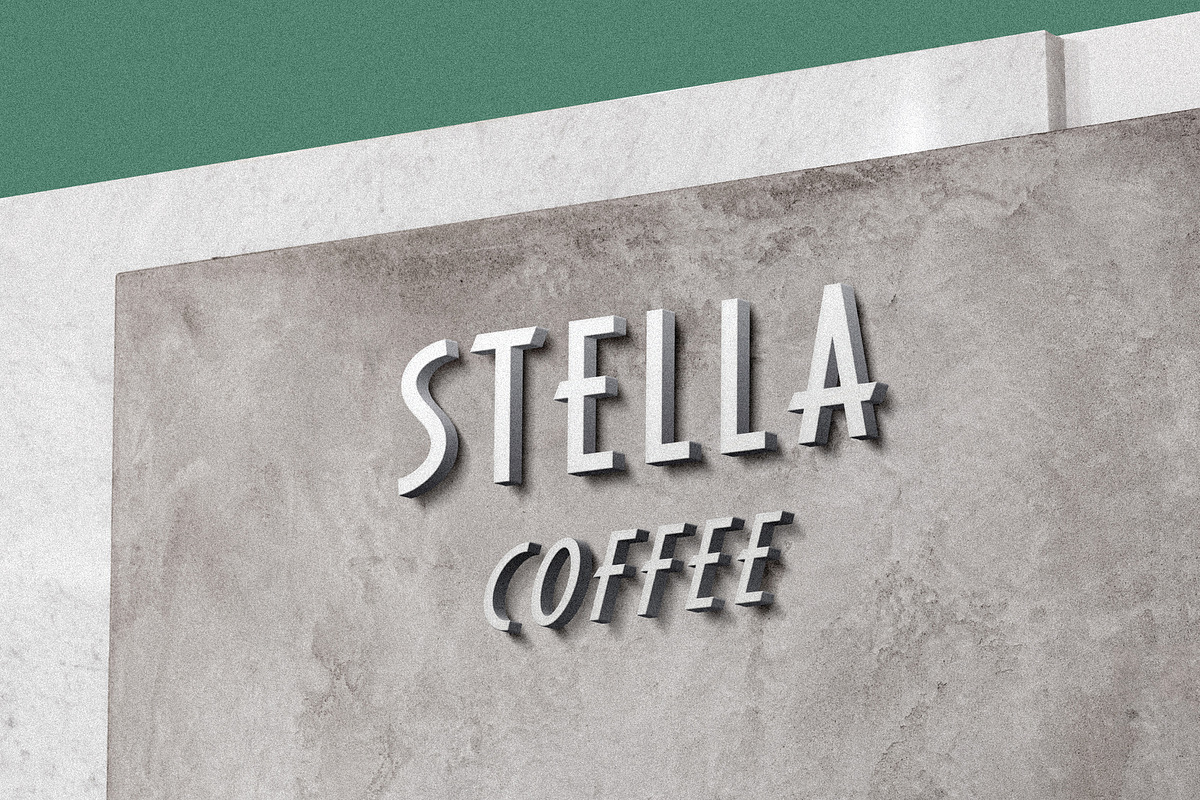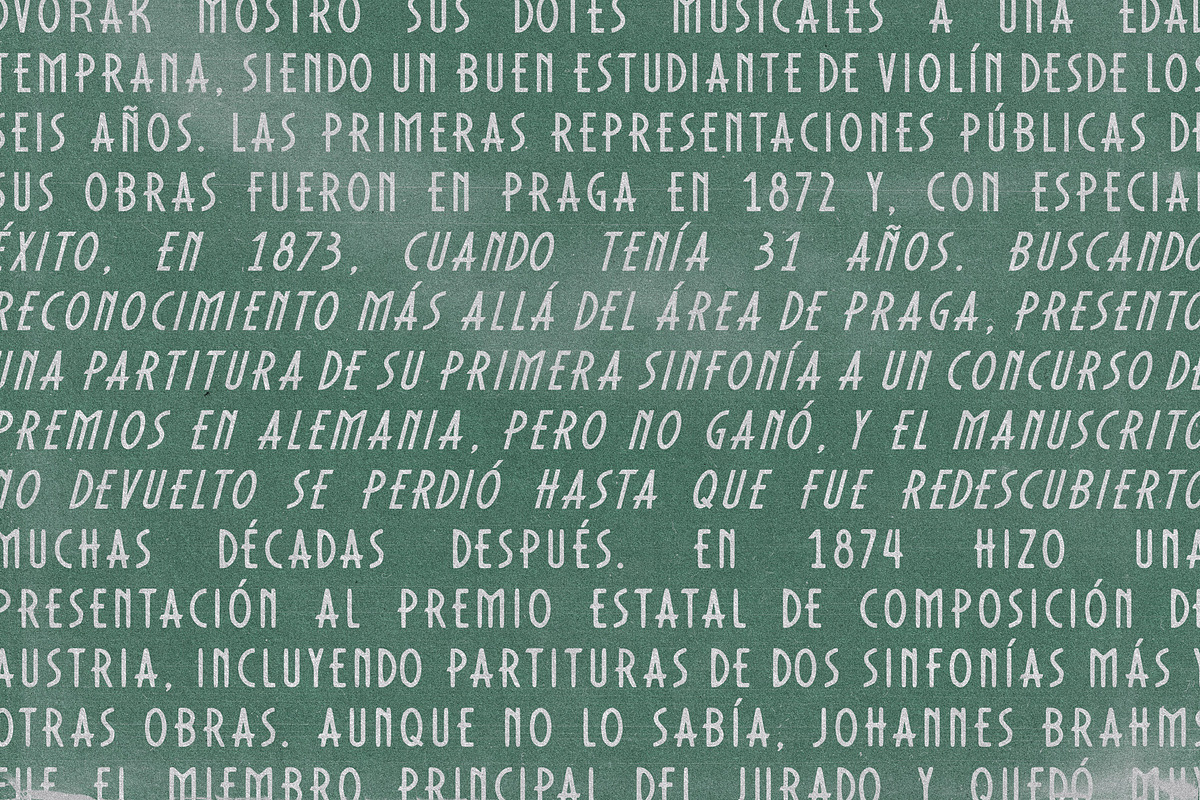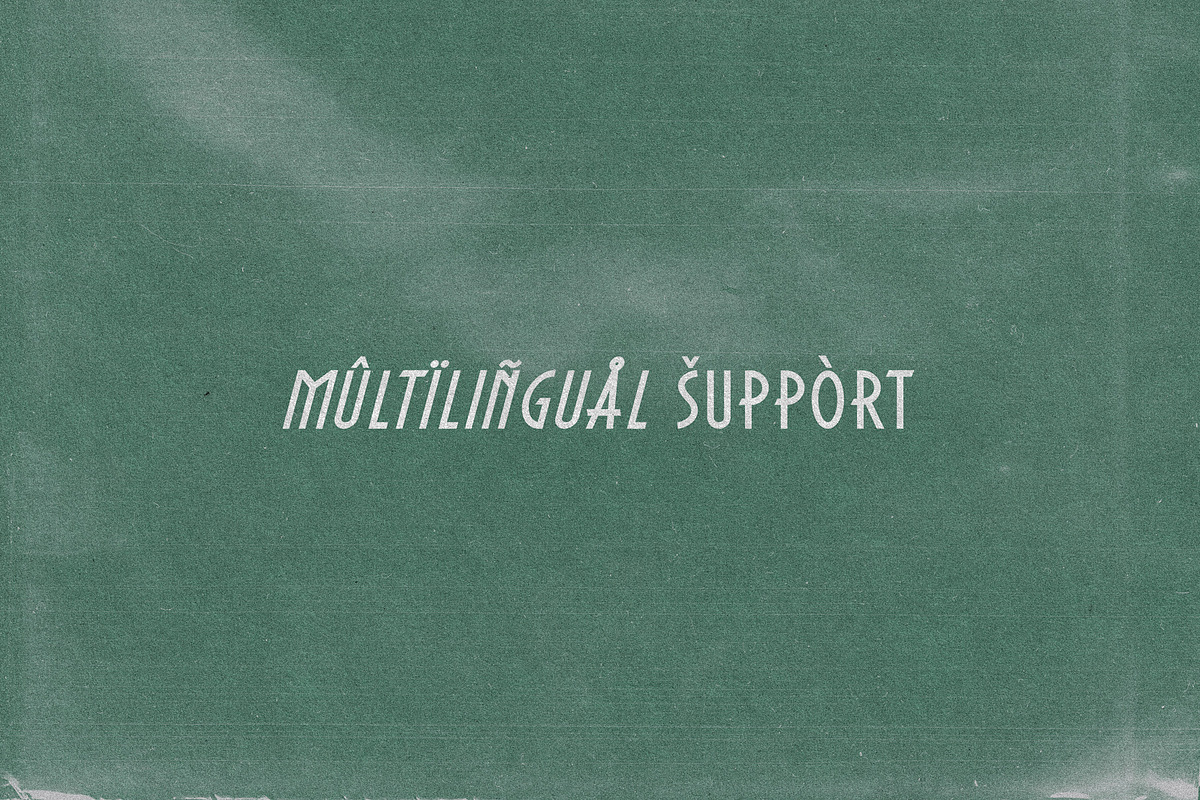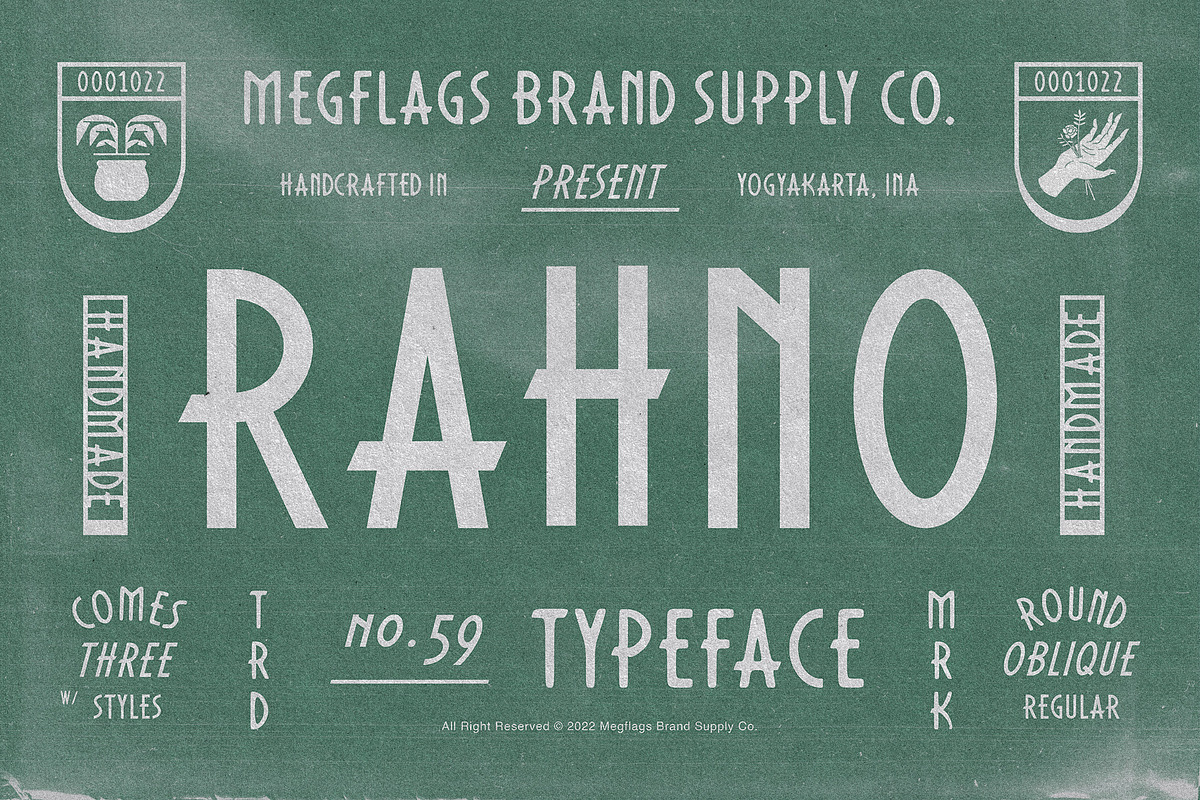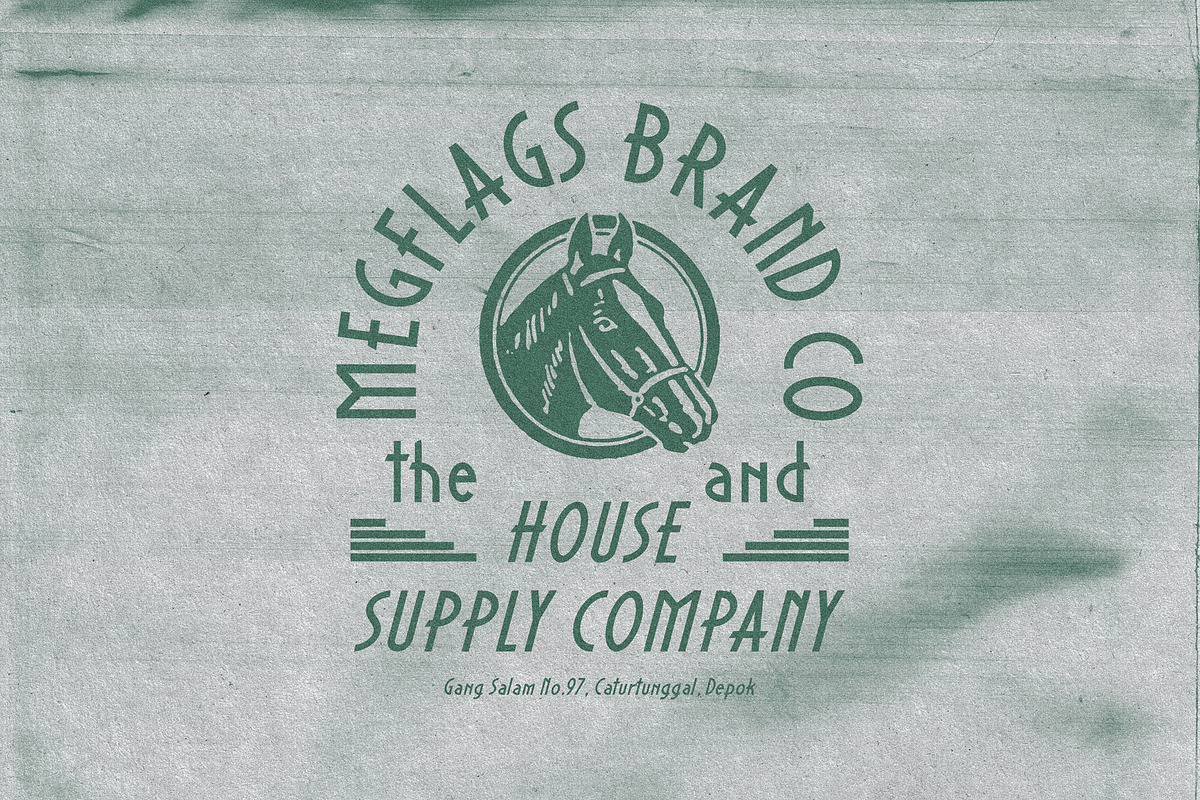
Rahno
Rahno Typeface by Megflags Brand Co.
Inspired by vintage motel sign. Really great for logo, branding, packaging design, posters, banners, stationery, t-shirts, or merchandise!